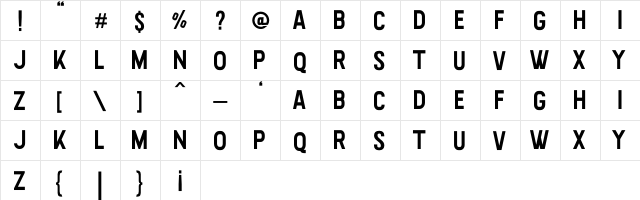
Highstories Sans Regular
| Designer | Malik Wisnu |
Design Context for Highstories Sans Typeface
Highstories Sans takes a measured approach to typography — its balanced proportions and neutral character make it a reliable workhorse for both digital and print work.